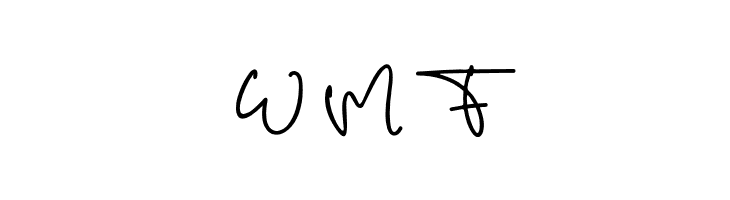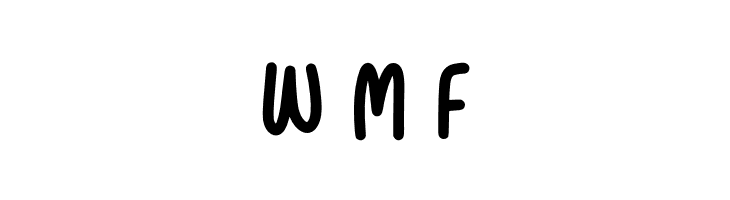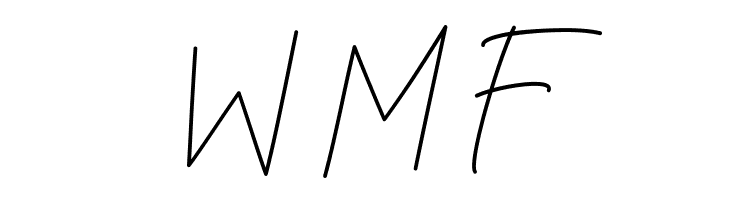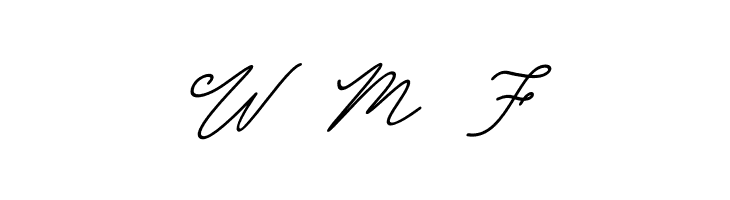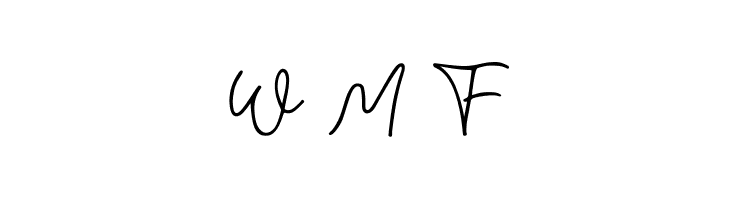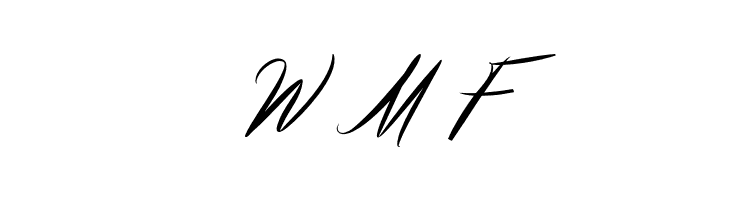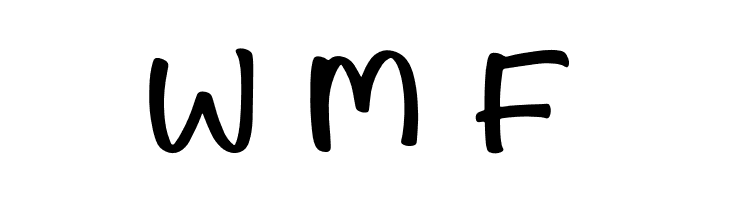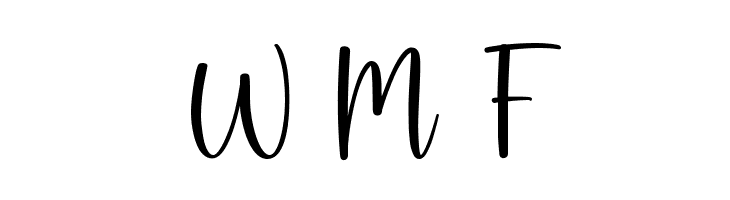
A bold, shadowed, and slightly italicized font with a playful and dynamic style.
A playful, handwritten font with rounded, irregular letterforms.
A playful, wide, and italic handwritten font with a whimsical touch.
Elegant cursive script font.
Handwritten cursive script font.
A lively handwritten font with fluid strokes and a dynamic appearance.
A playful, bold handwritten font with smooth, rounded edges and a friendly vibe.
Expressive, handwritten script with tall, dynamic strokes.
Elegant script font with a handwritten style.
A graceful, handwritten script font with flowing, elegant strokes.
A playful, handwritten font with a dynamic, wave-like flow.
A playful, flowing script font with a handwritten appearance.
Casual, rounded handwritten font with playful character shapes.
A whimsical, handwritten script with tall, narrow characters and expressive lowercase forms.
A bold, expressive handwritten font with fluid, slanted letterforms.
Handwritten, playful font with irregular strokes.
A playful, handwritten font with a friendly and approachable style.
Elegant handwritten script font.
A graceful, handwritten script font with a signature-like elegance.
A playful, handwritten font with smooth, flowing curves and consistent stroke width.
A playful, hand-drawn font with a whimsical and friendly style.